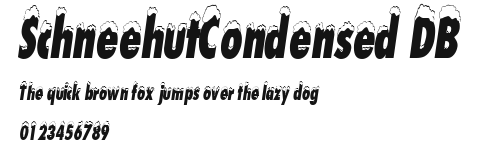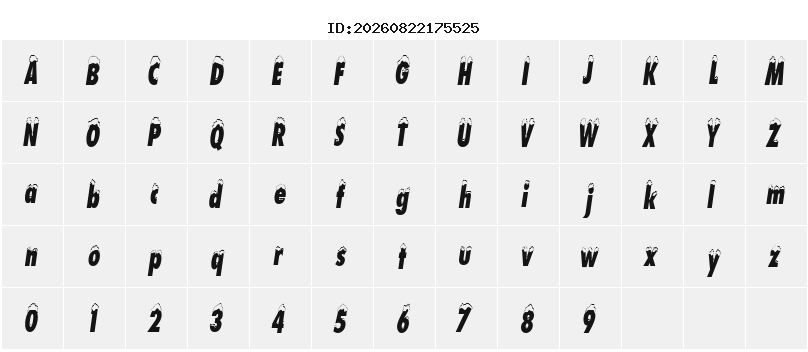
• Font Name: SchneehutCondensed DB
• Full Font Name: SchneehutCondensed DB
About SchneehutCondensed DB.ttf
SchneehutCondensed DB.ttf is a modern, elegant sans-serif font designed for ultimate readability and visual harmony. Perfect for branding, headlines, web design, and print materials.